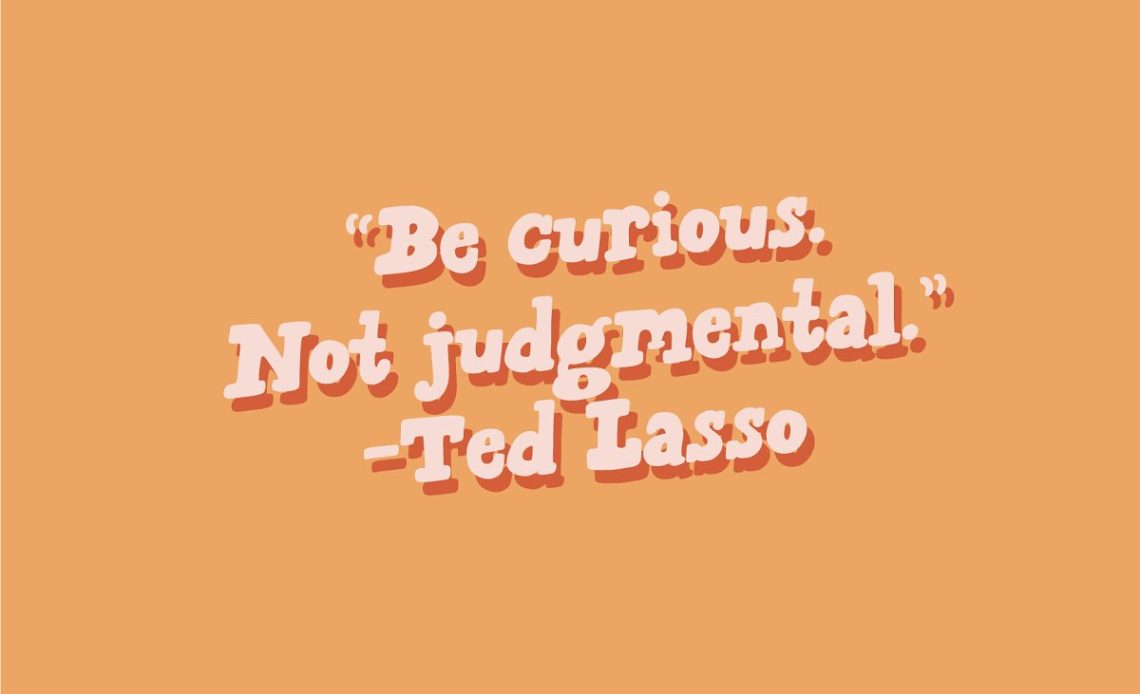
Introducing Gigi May, the Kids' Bubble Serif Font that will bring joy and creativity to your projects! Created by the talented Becky Simpson, this font is a delightful combination of whimsical serifs and bubbly charm. It's perfect for kids' art, but also appeals to the young at heart.
Gigi May is more than just a font. It's a gateway to imagination and playful expression. With its unique design, it injects a sense of fun into any project. Whether you're designing headers, logos, subtitles, children's books, indie branding, Instagram announcements, or web banners, Gigi May will captivate your audience.
This font family includes both uppercase and lowercase letters, allowing you to create dynamic and visually appealing designs. The punctuation marks and numbers are also included, ensuring that your text is complete and versatile.